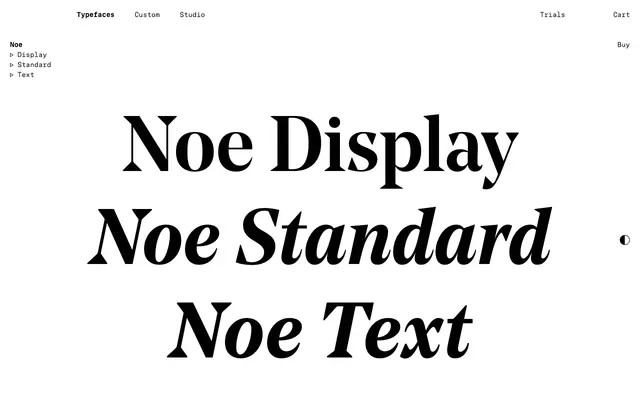
Noe
Noe specimen from Schick Toikka
A high-contrast Latin serif with wedge-shaped serifs and beaked arches, in three optical sizes (Display, Standard, Text) with italics and broad European language support.
Noe is a high-contrast serif in the Latin (Etienne / Renaissance) genre that first blossomed in the 1880s. Large wedge-shaped serifs, beaked arches and a vertical stress axis with strong thick-thin contrast give it a fierce edge, tempered by a graceful italic with a blatantly cursive construction and long tapering entry and exit strokes. Three optical subfamilies tune the design to size: Noe Display is unapologetically expressive, with delicate hairlines for headlines; Noe Text adds heft and blunts corners just enough to keep details visible at body sizes; Noe Standard sits between them for subheads, intros and big screen sizes. Each comes in a range of weights plus italics and ships with a Latin Extended character set covering virtually every language of Western and Central Europe.
Schick Toikka link Noe to the 'Latin' genre (also known in German as 'Etienne' or 'Renaissance'), which first blossomed in the 1880s. Noe shares the older rational romans' vertical stress axis and strong contrast but is distinguished by tapered triangular serifs.